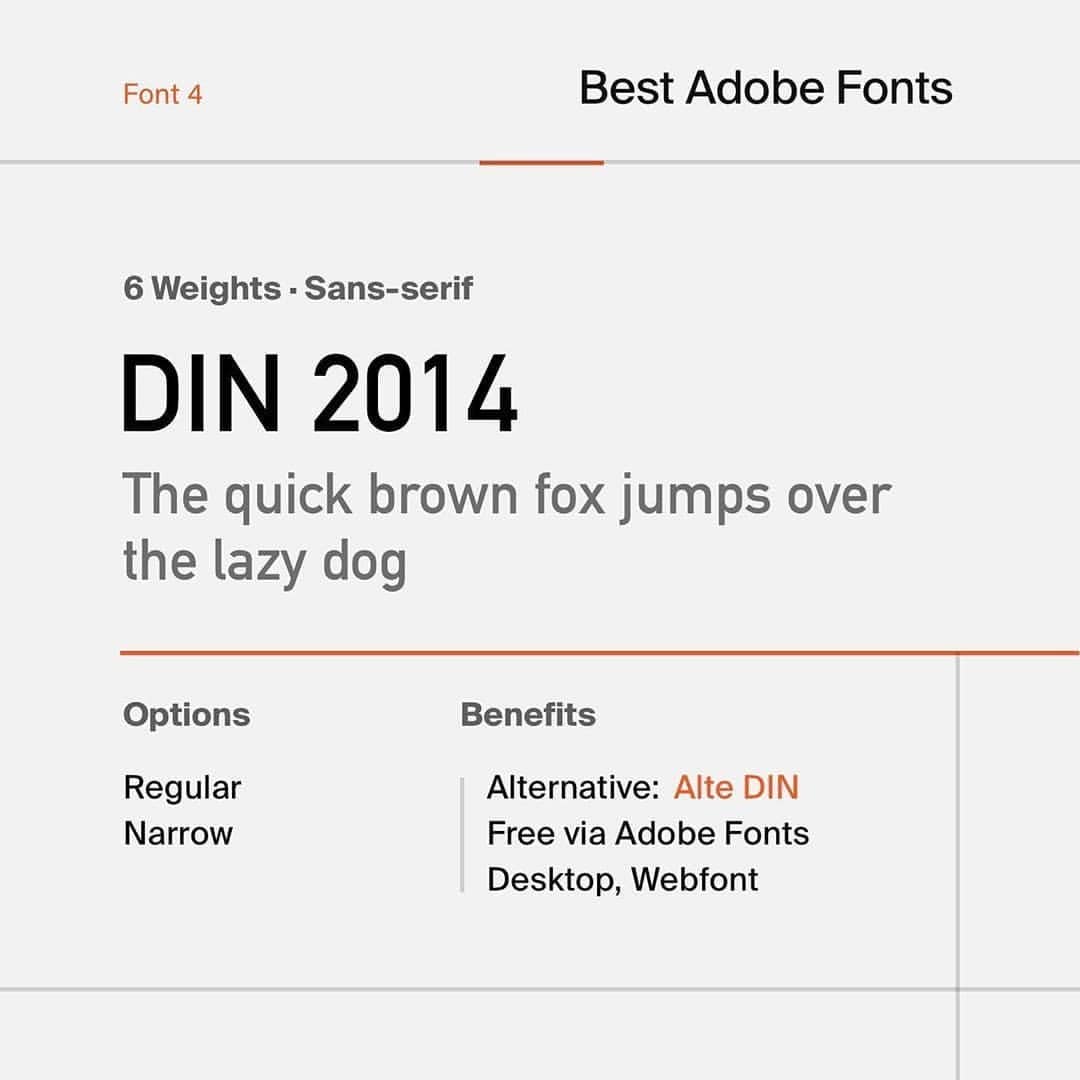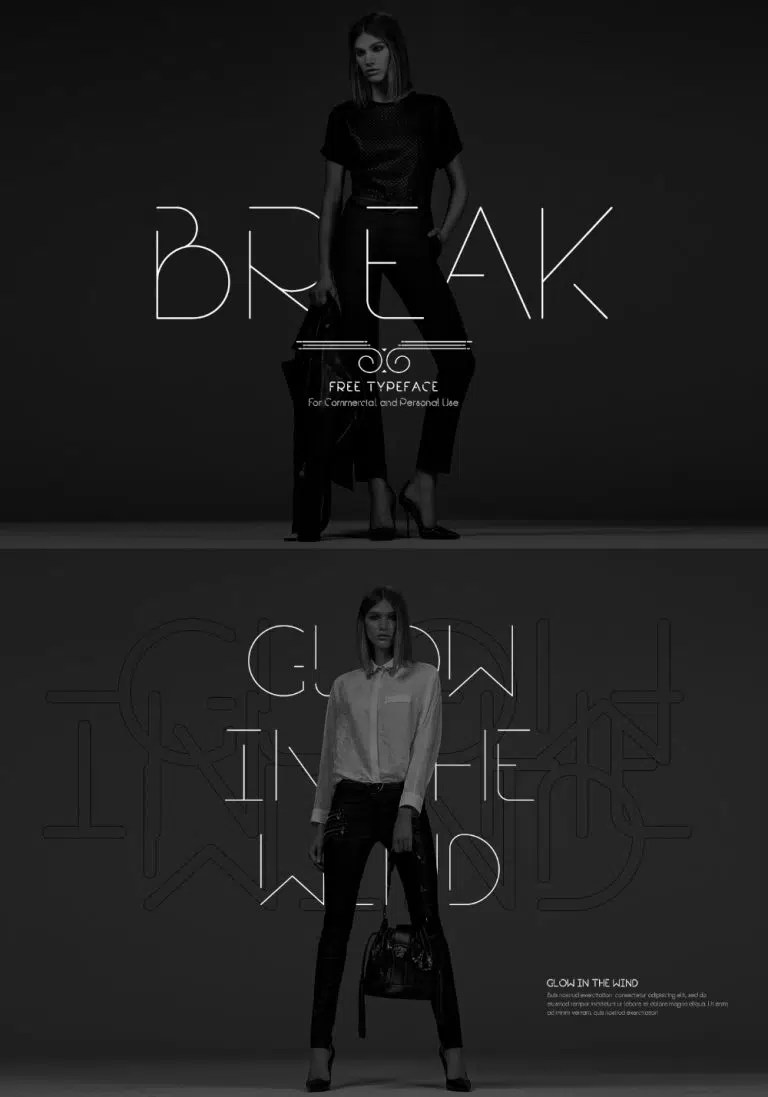
Best Adobe Fonts For Brochures . The best fonts for business brochures and flyers combine classic styling with modern features. Looking for the perfect font for your next flyer design? Look no further than our comprehensive list of the 27+ best fonts for flyers & brochures. Today, we'll give you some tips on how to choose a font for your brochure, show you some examples of fonts used in brochures, and then share the best fonts for brochures of all types available at envato elements. Distinctive and versatile, these font sets from designers around the globe add a sophisticated, professional look to promotional materials of all kinds. Whether you're creating a corporate pamphlet, an event flyer, or a creative showcase, these fonts provide the essential ingredients for a. In the world of brochure design, your.
Looking for the perfect font for your next flyer design? Today, we'll give you some tips on how to choose a font for your brochure, show you some examples of fonts used in brochures, and then share the best fonts for brochures of all types available at envato elements. Distinctive and versatile, these font sets from designers around the globe add a sophisticated, professional look to promotional materials of all kinds. Look no further than our comprehensive list of the 27+ best fonts for flyers & brochures. Whether you're creating a corporate pamphlet, an event flyer, or a creative showcase, these fonts provide the essential ingredients for a. The best fonts for business brochures and flyers combine classic styling with modern features. In the world of brochure design, your.
10 Best Typefaces in Adobe Fonts
Best Adobe Fonts For Brochures Today, we'll give you some tips on how to choose a font for your brochure, show you some examples of fonts used in brochures, and then share the best fonts for brochures of all types available at envato elements. Today, we'll give you some tips on how to choose a font for your brochure, show you some examples of fonts used in brochures, and then share the best fonts for brochures of all types available at envato elements. The best fonts for business brochures and flyers combine classic styling with modern features. Looking for the perfect font for your next flyer design? Whether you're creating a corporate pamphlet, an event flyer, or a creative showcase, these fonts provide the essential ingredients for a. Look no further than our comprehensive list of the 27+ best fonts for flyers & brochures. Distinctive and versatile, these font sets from designers around the globe add a sophisticated, professional look to promotional materials of all kinds. In the world of brochure design, your.
The Best Fonts for Brochures (with Examples) Envato Tuts+ Best Adobe Fonts For Brochures Whether you're creating a corporate pamphlet, an event flyer, or a creative showcase, these fonts provide the essential ingredients for a. Look no further than our comprehensive list of the 27+ best fonts for flyers & brochures. Today, we'll give you some tips on how to choose a font for your brochure, show you some examples of fonts used in. Best Adobe Fonts For Brochures.
24 Fonts for Brochures That Will Propel Your Visual Communication Best Adobe Fonts For Brochures Distinctive and versatile, these font sets from designers around the globe add a sophisticated, professional look to promotional materials of all kinds. The best fonts for business brochures and flyers combine classic styling with modern features. Look no further than our comprehensive list of the 27+ best fonts for flyers & brochures. Looking for the perfect font for your next. Best Adobe Fonts For Brochures.
24 Fonts for Brochures That Will Propel Your Visual Communication Best Adobe Fonts For Brochures Distinctive and versatile, these font sets from designers around the globe add a sophisticated, professional look to promotional materials of all kinds. Looking for the perfect font for your next flyer design? Look no further than our comprehensive list of the 27+ best fonts for flyers & brochures. Today, we'll give you some tips on how to choose a font. Best Adobe Fonts For Brochures.
The Best Fonts for Brochures (with Examples) Envato Tuts+ Best Adobe Fonts For Brochures The best fonts for business brochures and flyers combine classic styling with modern features. Looking for the perfect font for your next flyer design? In the world of brochure design, your. Today, we'll give you some tips on how to choose a font for your brochure, show you some examples of fonts used in brochures, and then share the best. Best Adobe Fonts For Brochures.
6 Great Fonts for Your Brochures Image Cube Best Adobe Fonts For Brochures Whether you're creating a corporate pamphlet, an event flyer, or a creative showcase, these fonts provide the essential ingredients for a. The best fonts for business brochures and flyers combine classic styling with modern features. Look no further than our comprehensive list of the 27+ best fonts for flyers & brochures. In the world of brochure design, your. Looking for. Best Adobe Fonts For Brochures.
20 Best Adobe Fonts for Designers in 2023 Best Adobe Fonts For Brochures Distinctive and versatile, these font sets from designers around the globe add a sophisticated, professional look to promotional materials of all kinds. The best fonts for business brochures and flyers combine classic styling with modern features. In the world of brochure design, your. Look no further than our comprehensive list of the 27+ best fonts for flyers & brochures. Today,. Best Adobe Fonts For Brochures.
10+ Best Fonts for Brochures in 2021 Free and Premium Fonts Best Adobe Fonts For Brochures Today, we'll give you some tips on how to choose a font for your brochure, show you some examples of fonts used in brochures, and then share the best fonts for brochures of all types available at envato elements. The best fonts for business brochures and flyers combine classic styling with modern features. Distinctive and versatile, these font sets from. Best Adobe Fonts For Brochures.
24 Fonts for Brochures That Will Propel Your Visual Communication Best Adobe Fonts For Brochures Looking for the perfect font for your next flyer design? Distinctive and versatile, these font sets from designers around the globe add a sophisticated, professional look to promotional materials of all kinds. Today, we'll give you some tips on how to choose a font for your brochure, show you some examples of fonts used in brochures, and then share the. Best Adobe Fonts For Brochures.
Best Fonts for Business Brochures and Flyers That Stand Out Creative Best Adobe Fonts For Brochures Distinctive and versatile, these font sets from designers around the globe add a sophisticated, professional look to promotional materials of all kinds. In the world of brochure design, your. Look no further than our comprehensive list of the 27+ best fonts for flyers & brochures. The best fonts for business brochures and flyers combine classic styling with modern features. Looking. Best Adobe Fonts For Brochures.